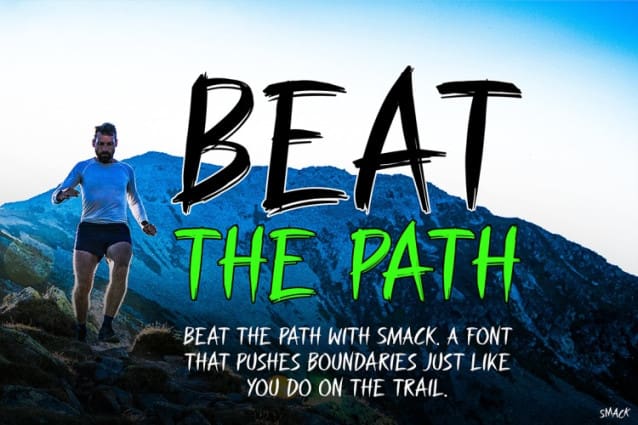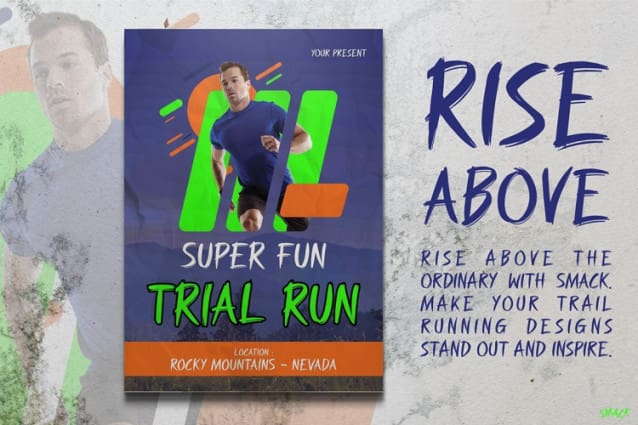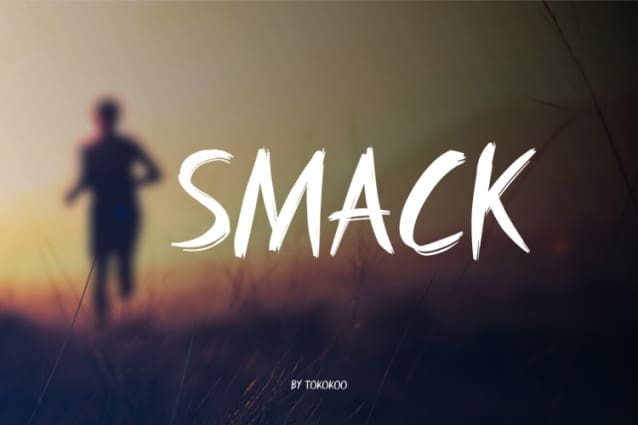
Smack Brush Font
Smack Brush Font is a bold and dynamic typeface inspired by street art and urban aesthetics. Its hand-brushed strokes and rugged edges mimic the expressive style of graffiti, creating a raw and energetic look. Moreover, this font stands out with its rebellious and modern vibe, making it perfect for designs seeking a distinctive edge. The irregular strokes and uneven finishes further enhance its handcrafted feel, emphasizing its urban roots.
Whether you are working on branding, posters, or digital content, Graffiti Font Smack ensures your project gets noticed. Additionally, its bold character brings an artistic edge to any design, making it ideal for audiences drawn to daring and unconventional styles. Furthermore, this font performs well across both print and digital platforms while maintaining its vibrant street-smart personality.